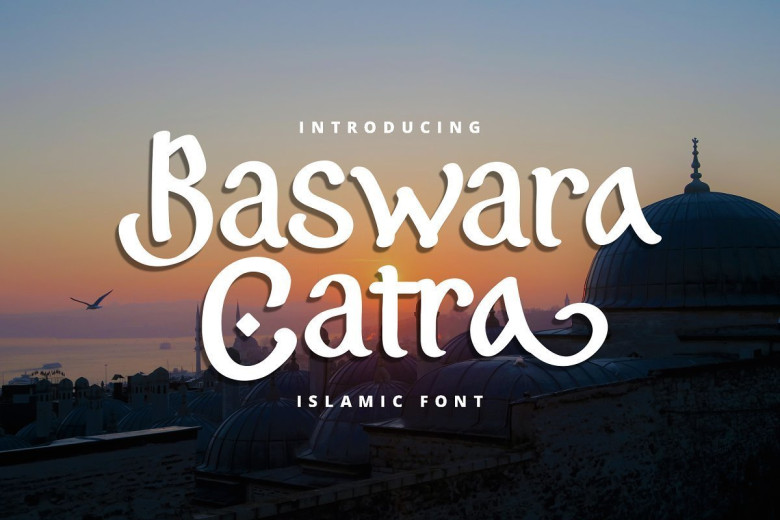
Baswara Catra Islamic Font
Baswara Catra Islamic Font is a cool chill style font, design for a unique series of beach-related inspired concepts by a local surf shop, the goal was to reach a global look for a local brand design; with clean and alternate lines, comes the coolest font of the block.